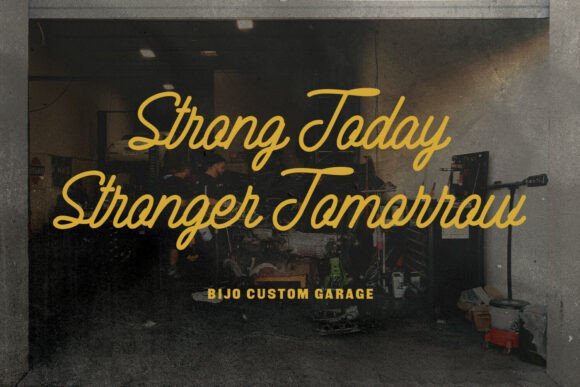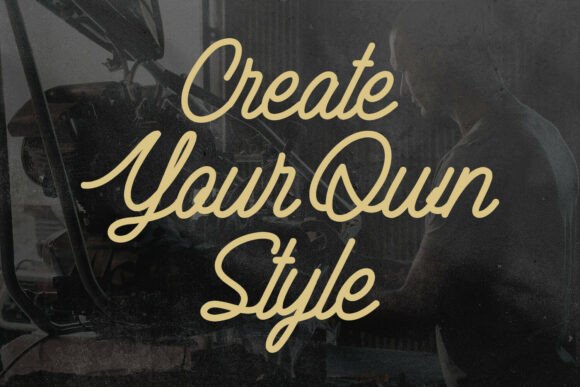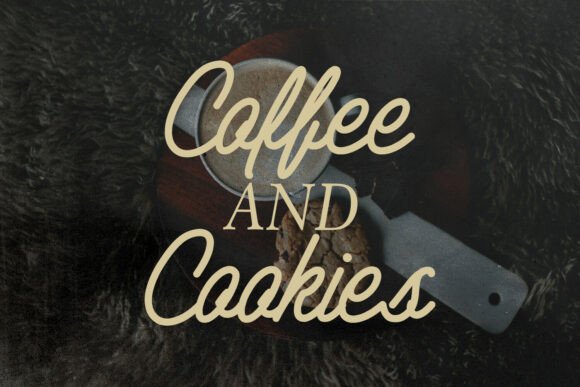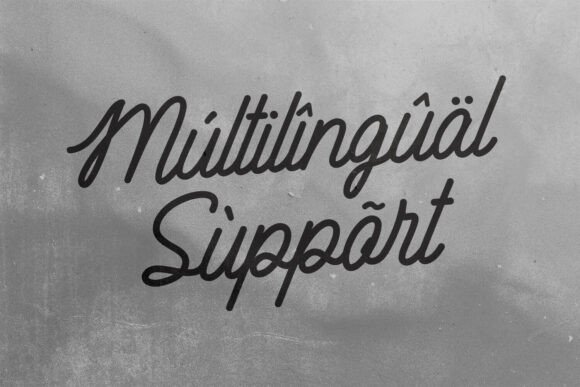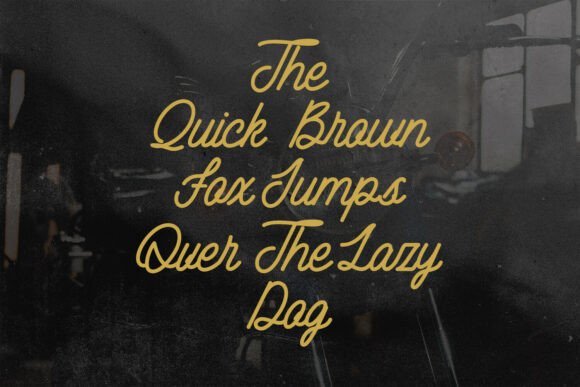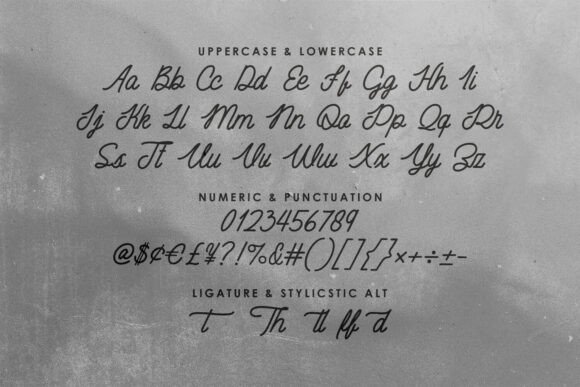
Introducing Heatched Font: The Ultimate Retro Monoline Script Font
Are you a designer or crafter looking for a font that exudes a smooth, vintage flow and bold personality? Look no further than Heatched Font, a retro monoline script font that’s perfect for creating stunning logos, packaging, posters, and retro-inspired social media graphics.
Inspired by Mid-Century Signage and Classic Branding
Heatched Font draws inspiration from the iconic signage and branding of the mid-century era, a time when typography was bold, playful, and full of character. This font is a modern interpretation of classic design elements, reimagined with a fresh perspective to appeal to designers and crafters today.
Clean Curves and Dynamic Strokes
One of the standout features of Heatched Font is its clean curves and dynamic strokes. The font’s monoline construction gives it a sleek, streamlined look that’s perfect for creating modern designs with a retro twist. The smooth, flowing lines of Heatched Font evoke a sense of nostalgia, while its bold personality ensures it remains firmly rooted in the present.
Heatched Font is an incredibly versatile font that’s suitable for a wide range of design projects. Here are just a few ideas to get you started:
- Logos: Create a bold, eye-catching logo that makes a statement with Heatched Font.
- Packaging: Add a touch of vintage glamour to your product packaging with this beautiful font.
- Posters: Design stunning posters that showcase your brand’s personality with Heatched Font.
- Social Media Graphics: Create retro-inspired social media graphics that stand out from the crowd with this unique font.
Why Choose Heatched Font?
So why should you choose Heatched Font for your next design project? Here are just a few compelling reasons:
- Unique Style: Heatched Font offers a distinctive, retro-inspired style that’s sure to set your designs apart.
- High Versatility: This font is suitable for a wide range of design projects, from logos and packaging to posters and social media graphics.
- Ease of Use: Heatched Font is easy to read and works beautifully in both digital and print formats.
- Timeless Appeal: The mid-century inspiration behind Heatched Font ensures it will remain a timeless, stylish choice for years to come.
How to Use Heatched Font
- Experiment with Sizes: Heatched Font looks great in a variety of sizes, from large headings to smaller body text.
- Play with Colors: This font works beautifully in a range of colors, from bold brights to more muted, pastel shades.
- Mix and Match: Don’t be afraid to combine Heatched Font with other design elements, such as images or graphics, to create a unique look.
Key Features of Heatched Font
- Retro monoline script font
- Smooth, vintage flow and bold personality
- Inspired by mid-century signage and classic branding
- Clean curves and dynamic strokes
- Perfect for logos, packaging, posters, and social media graphics
- Highly versatile and easy to use